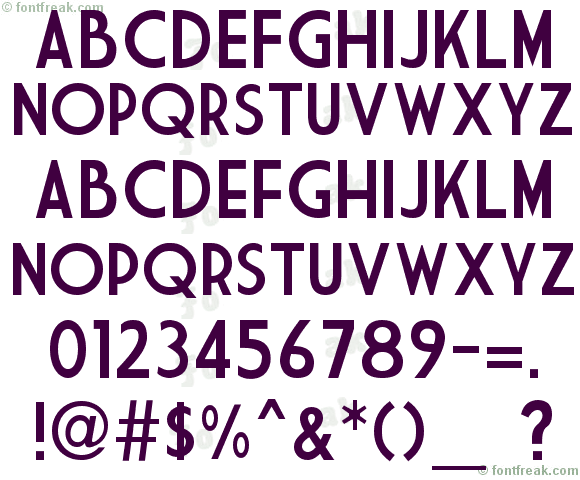
Market Deco
Market Deco, designed by Steve Ferrera, is a striking display font that captures the essence of the Art Deco movement, bringing vintage flair to modern design. This font features bold, geometric letterforms with a strong, consistent stroke weight that creates a sense of stability and confidence. The clean lines and minimal contrast between thick and thin strokes enhance its readability while maintaining an artistic appeal. Spacing is well-considered, allowing for a balanced appearance that makes it suitable for various design applications.
The decorative elements of Market Deco are reminiscent of classic signage and advertising from the early 20th century, making it an excellent choice for a range of creative projects. Its distinctive style is perfect for use in wedding invitations, where a touch of elegance is desired. Additionally, it works wonderfully on movie posters, lending a retro vibe that can capture the audience's attention. Restaurant menus will benefit from its unique character, adding a sophisticated yet approachable element that complements culinary offerings. Graphic designers and content creators will find this font particularly useful when crafting branding materials, as it can evoke a sense of nostalgia while appealing to a contemporary audience.